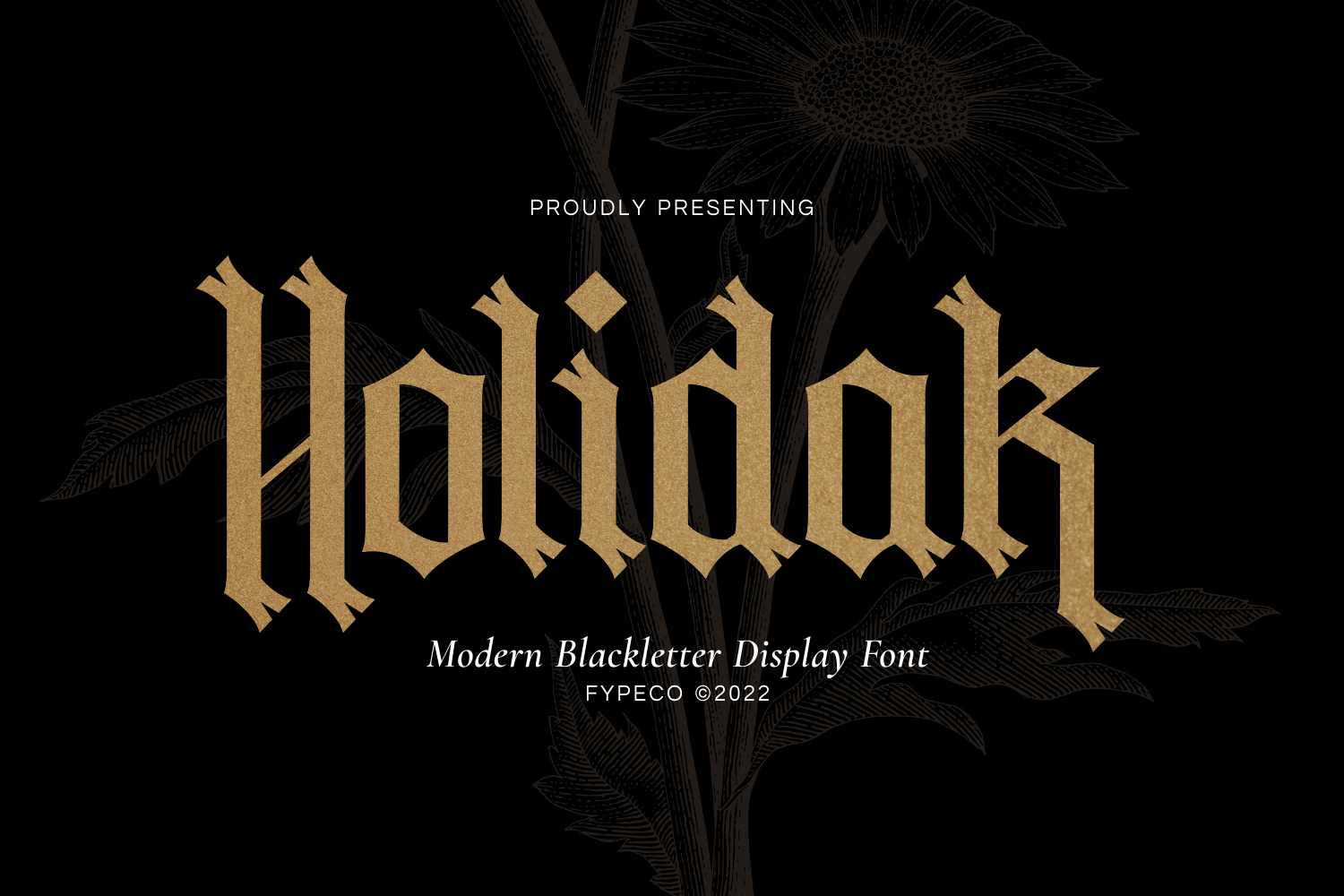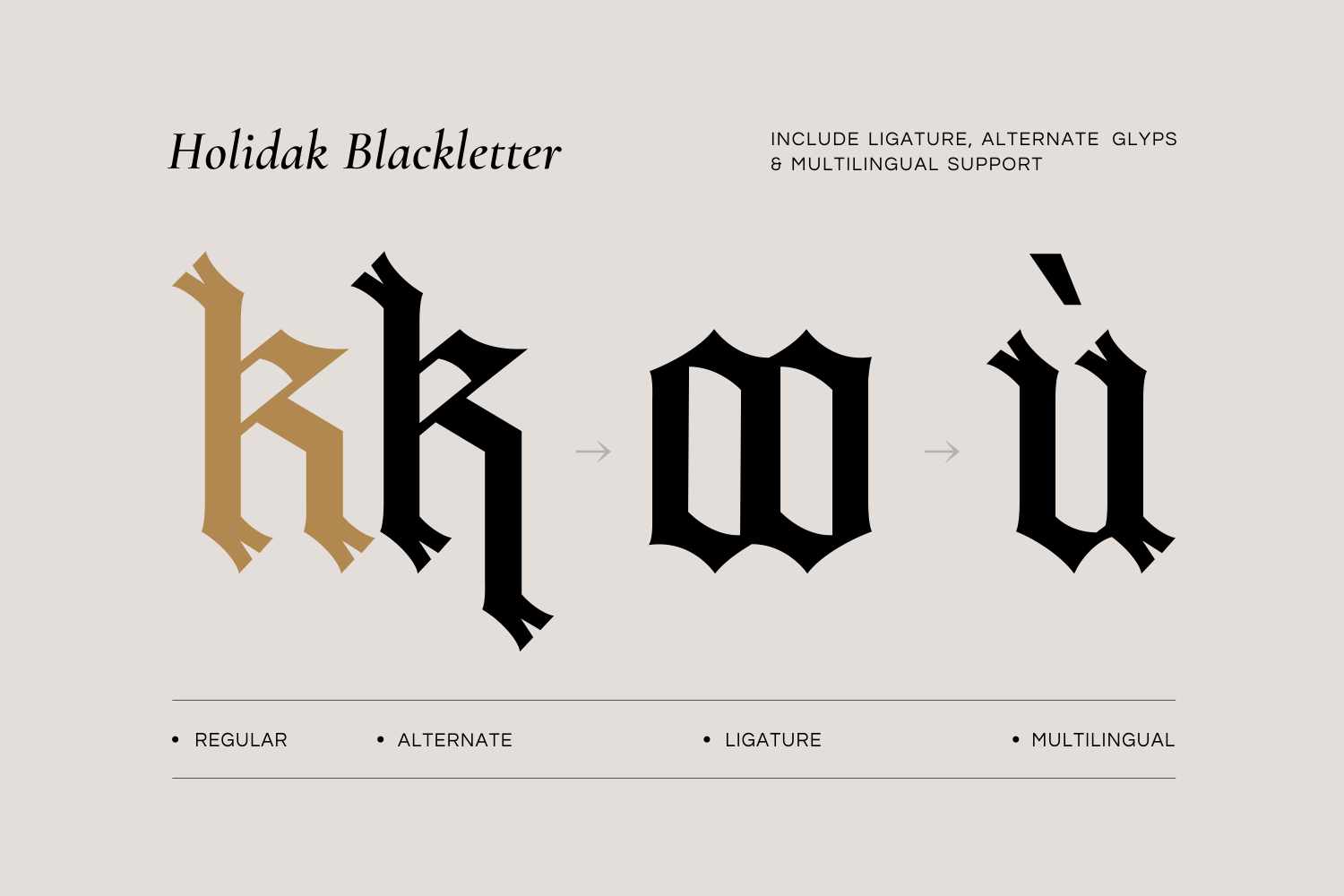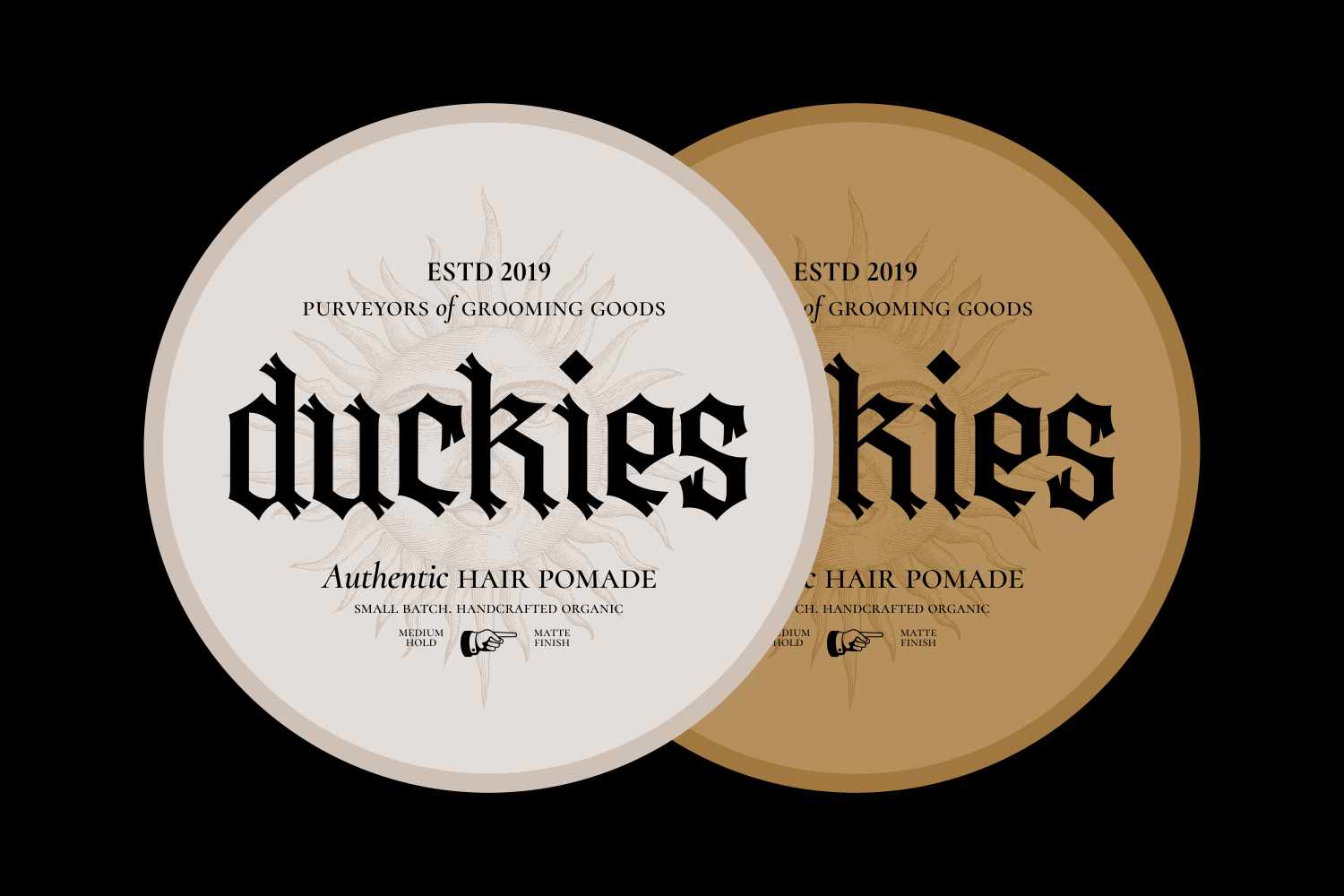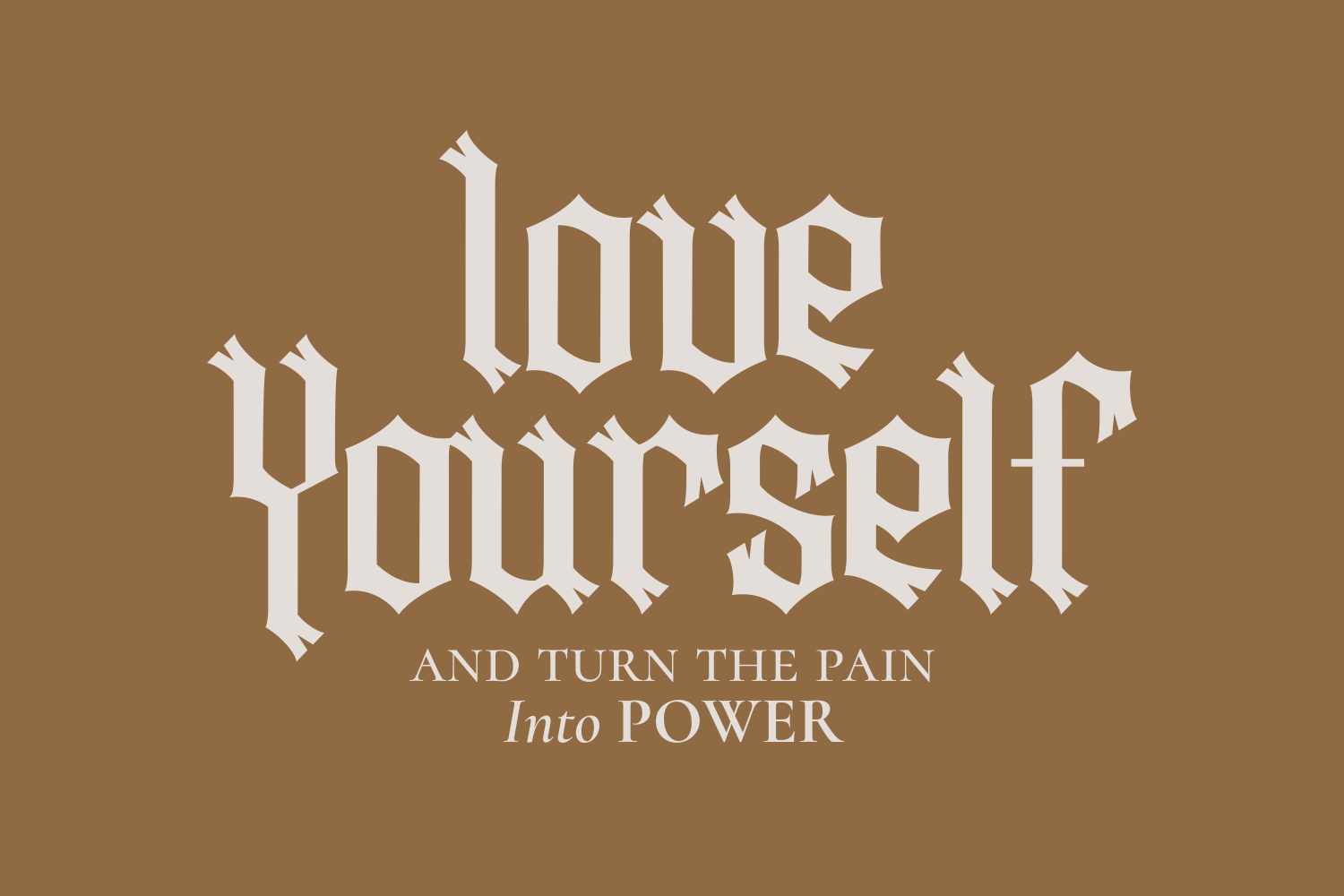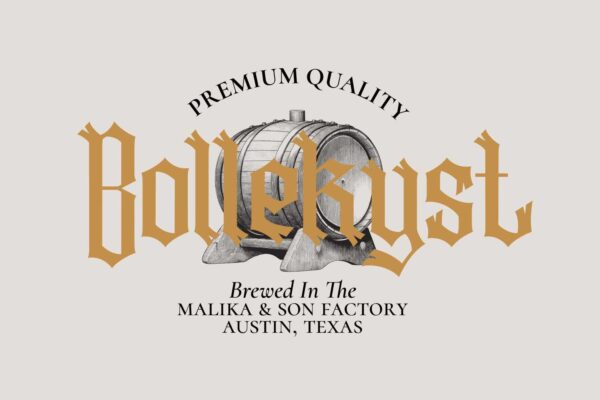
Holidak
Holidak is a modern blackletter display font that combines gothic tradition with a fresh, contemporary edge. Its sharp strokes, dramatic angles, and bold presence make it perfect for branding, apparel, posters, packaging, and logo designs that demand strength and originality. Inspired by medieval calligraphy yet refined for modern aesthetics, Holidak delivers a powerful and stylish statement in every project.
Complete with ligatures, stylistic alternates, and multilingual support, Holidak offers flexibility and creativity for diverse design needs. From craft beer labels and tattoo-inspired artwork to editorial layouts and bold merchandise, this font brings a striking blend of heritage and innovation. With Holidak, your design captures both the authenticity of tradition and the boldness of modern design trends.